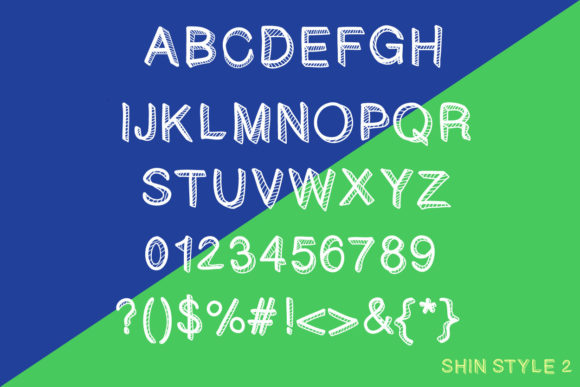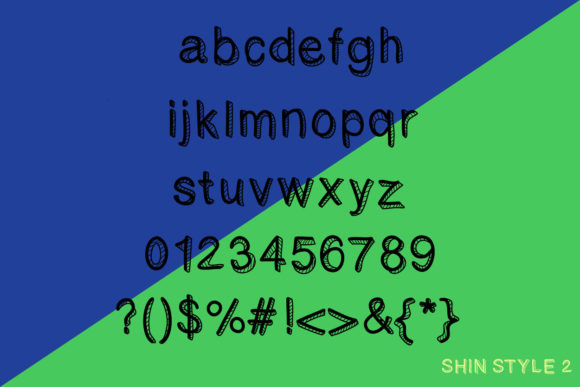
Unleashing Creativity: The Magic of 3D and Box Font
Do you remember the excitement of creating your first comic strip or cartoon character? The world of imagination opens up, and anything seems possible. That’s the magic of design – a world where creativity knows no bounds. And when it comes to bringing your ideas to life, the right font can make all the difference.
Enter the 3D and Box Font, a bold and thick lettered display font that’s perfect for adding a touch of whimsy to your designs. Whether you’re working on a children’s game, a book cover, or a poster, this font is sure to grab attention. As a designer, you know how valuable it is to have a versatile font that can elevate your creations. The 3D and Box Font is that font – a valuable addition to your design toolkit.
Key Features of 3D and Box Font
- Unique 3D Effect: The font features a unique 3D effect, giving it a dynamic and modern appearance that stands out from traditional fonts.
- Boxed Text: The font also includes a boxed text feature, allowing designers to create a boxed effect around text, adding an extra layer of depth and visual interest.
- Customizable: 3D and Box Font is highly customizable, with options to adjust the 3D effect, box size, and text color, giving designers the freedom to experiment and create unique designs.
Designer Review: 3D and Box Font
Overall, I think the 3D and Box Font is a unique and attention-grabbing choice for certain designs. ✨ The font’s bold, geometric style can work well for headings or titles, adding a touch of modernity and sophistication. ✨ The various 3D effects and box styles also offer a lot of flexibility, making it suitable for a range of applications, from digital interfaces to packaging designs.
However, there are some limitations to consider. ⚠️ One of the main drawbacks is that the font can be overwhelming if used excessively. The bold style and 3D effects can quickly become visually fatiguing, so it’s essential to use them sparingly. ⚠️ Additionally, the font may not be suitable for body text or large blocks of text, as it can be difficult to read.
In terms of overall impression, I would say that the 3D and Box Font is a great choice for designs that require a bold, eye-catching statement. However, it’s crucial to balance its use with more traditional, readable fonts to avoid overwhelming the user.
- Works well for headings, titles, and attention-grabbing designs
- Offers a range of 3D effects and box styles for added flexibility
- Not suitable for body text or large blocks of text
- Can be overwhelming if used excessively
Use 3D and box font to draw attention to important information, such as headings or calls-to-action. You can also use it to create a sense of depth and dimensionality in your designs. Experiment with different font styles and effects to achieve the desired look.